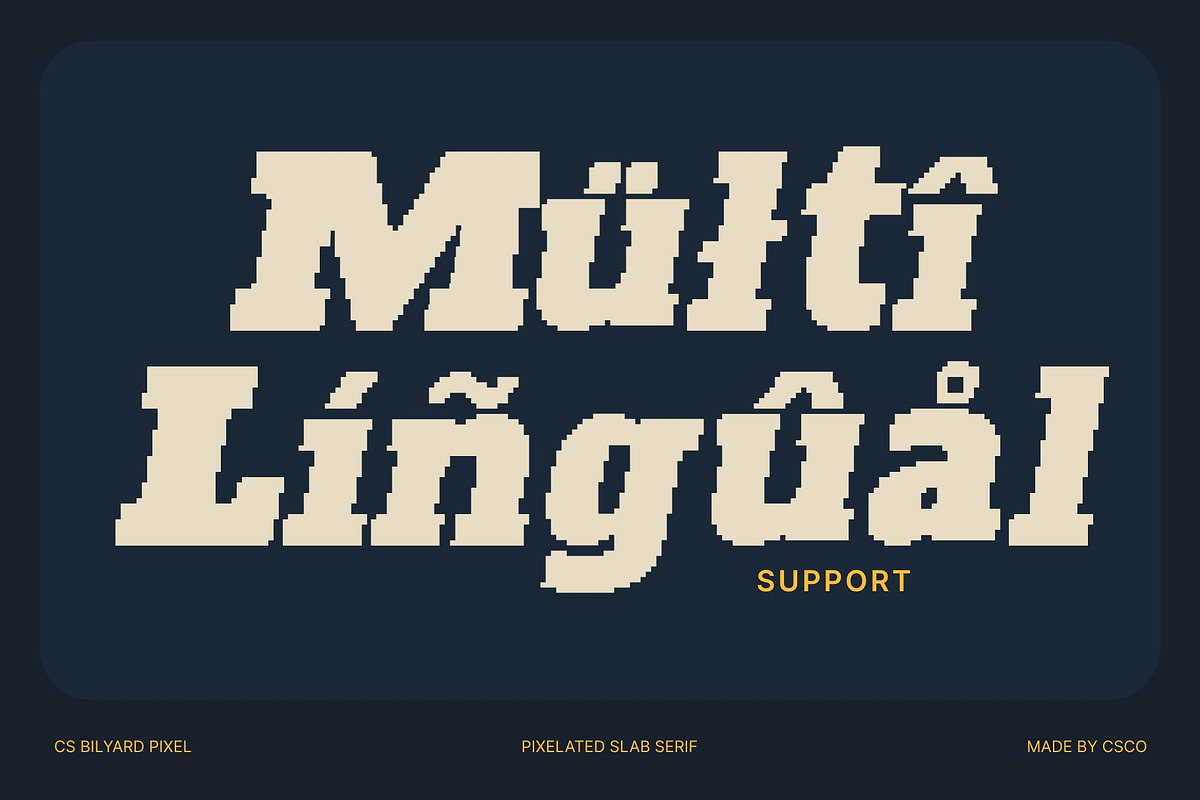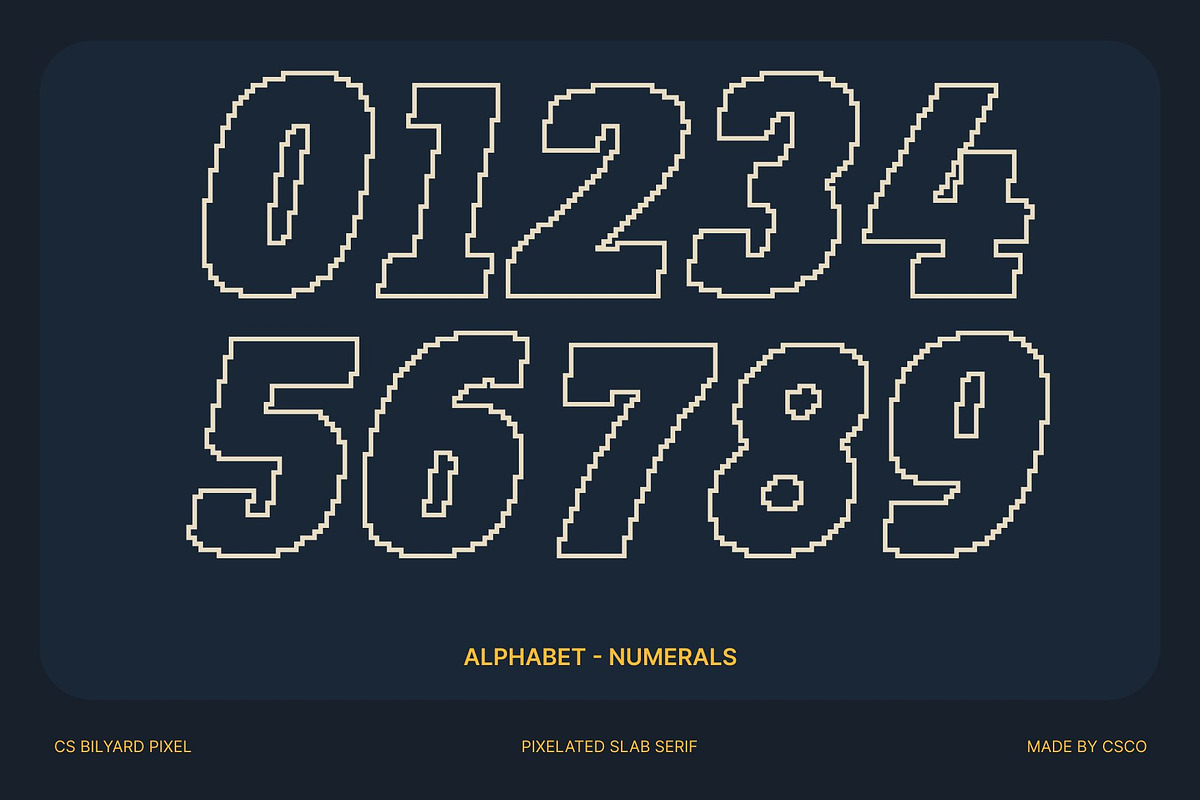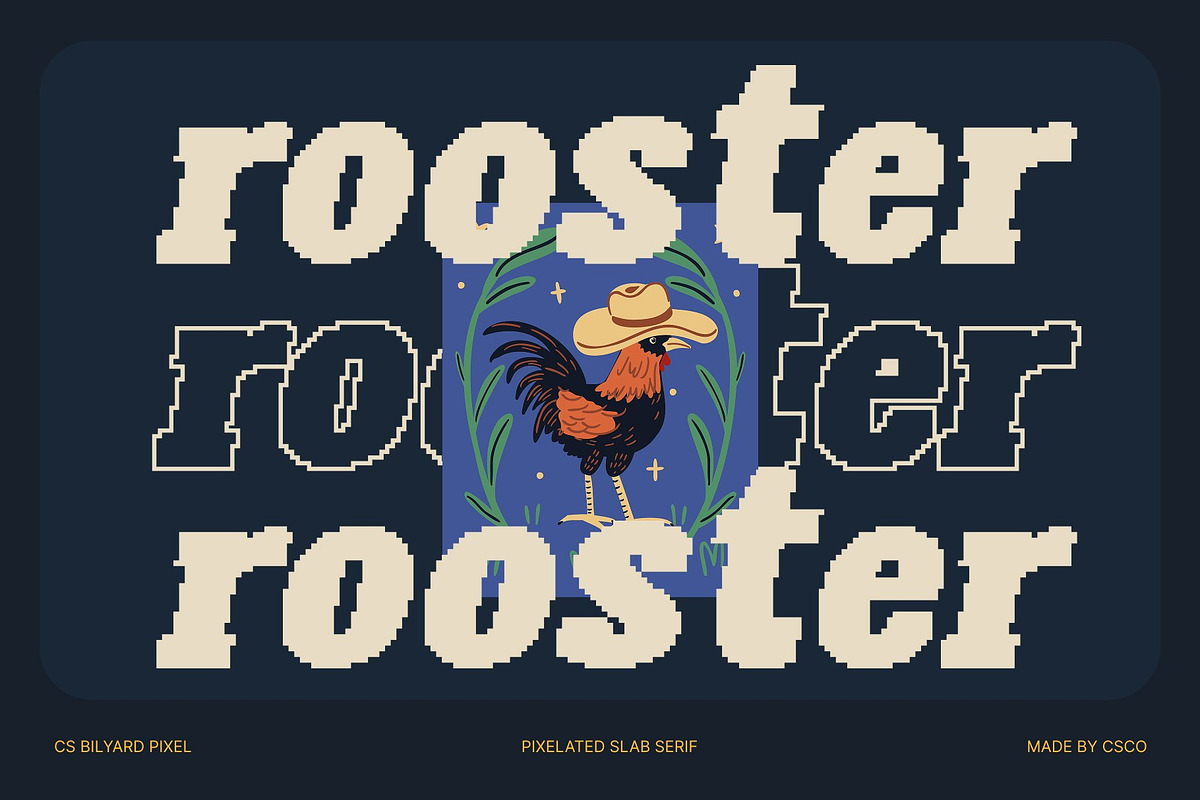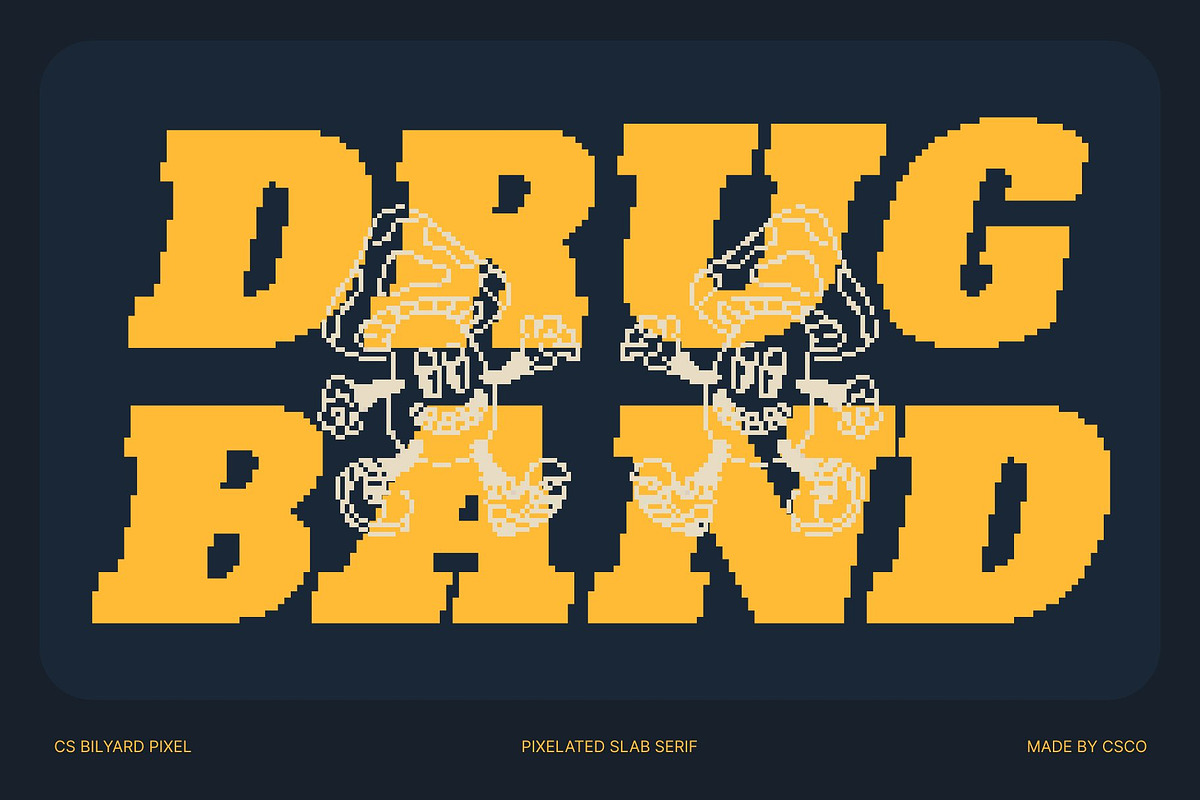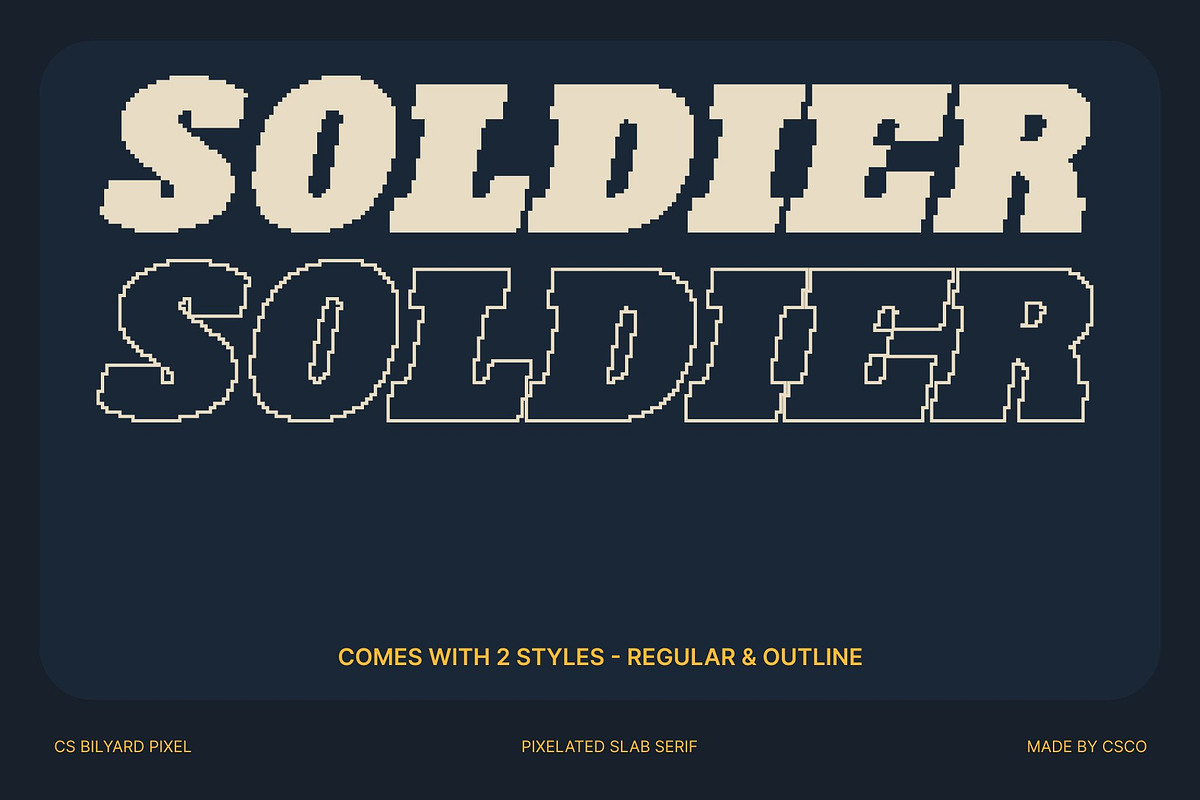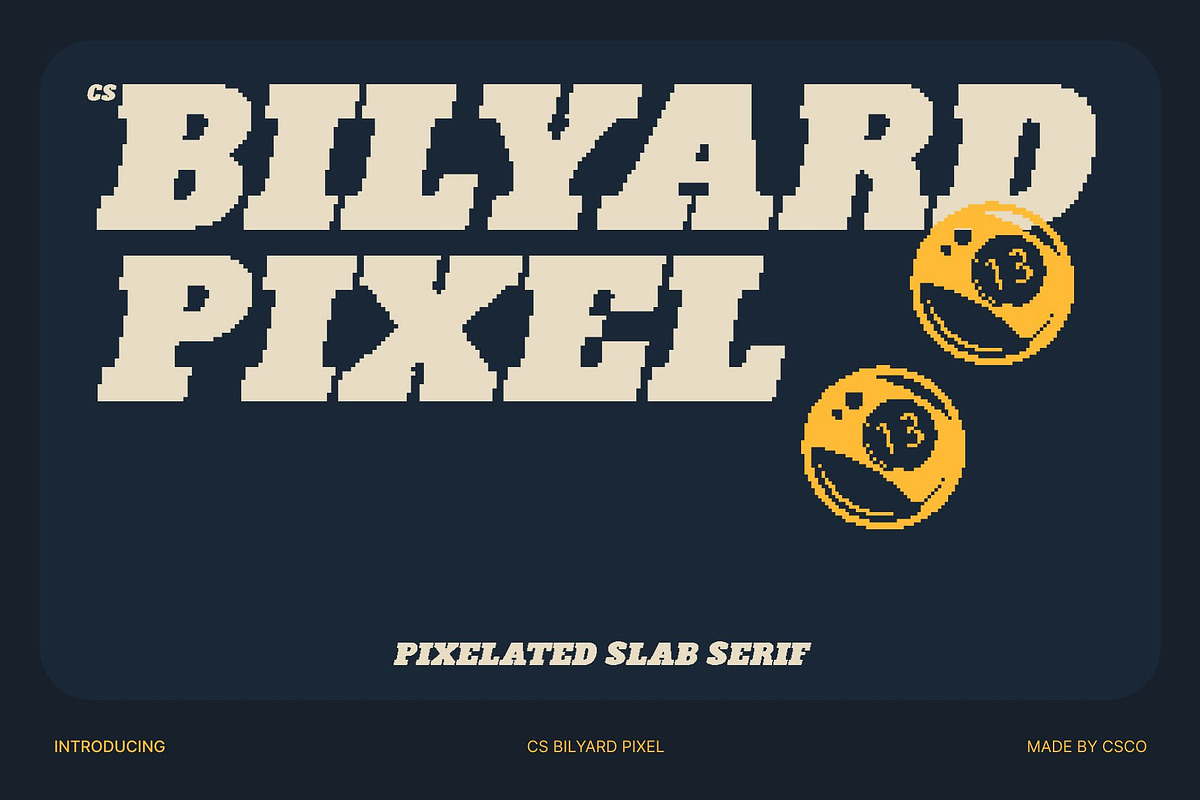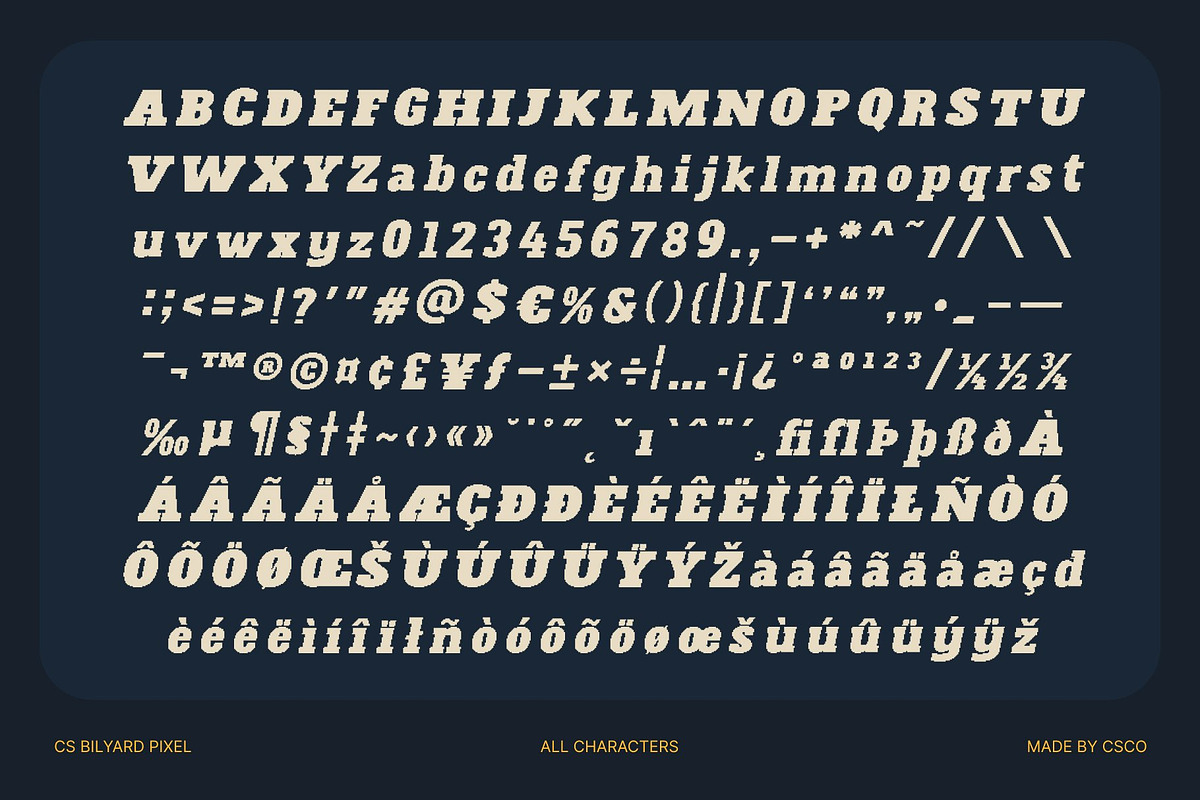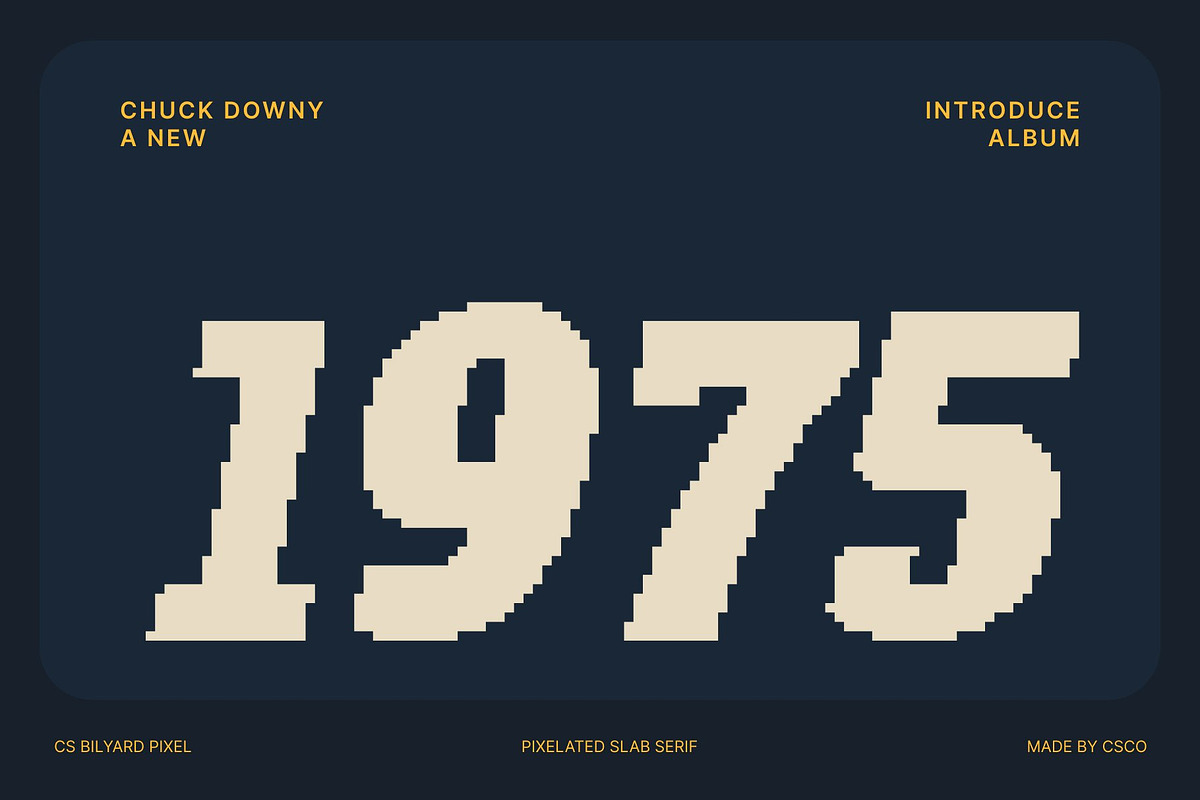
CS Bilyard Pixel
CS Bilyard Pixel – Slab Serif Font with Retro Strength
Bold Slab Serif with Retro Pixel Influence This is a bold slab serif font inspired by classic retro typography and translated into a striking pixel style. Its solid construction and strong slab serifs evoke a sense of heritage, confidence, and durability, while the pixel detailing adds a digital edge. This combination creates a typeface that feels nostalgic yet relevant, perfect for designs that celebrate the past with a modern visual language.
Strong Structure with Powerful Character Each letterform is designed with wide proportions, firm strokes, and clean pixel edges that enhance strength and clarity. The bold structure ensures excellent visibility, allowing text to stand out instantly. Its confident appearance delivers a sense of authority and reliability, making every word feel impactful and visually grounded across different layouts.
Bold Presence for Branding and Display Use This font excels in display-focused applications such as branding, posters, packaging, signage, and editorial headlines. Its retro-inspired slab serif style gives brands a strong and authentic voice, ideal for projects that aim to communicate trust, tradition, and bold personality.
Versatile Retro Style for Modern Creativity Although rooted in classic slab serif design, this font adapts seamlessly to modern creative needs. Its clean pixel execution allows it to work across nostalgic themes, contemporary branding, and experimental visuals. This versatility proves that retro strength and modern creativity can coexist in a powerful and memorable typeface.
- CS Bilyard Pixel Regular
- CS Bilyard Pixel Outline